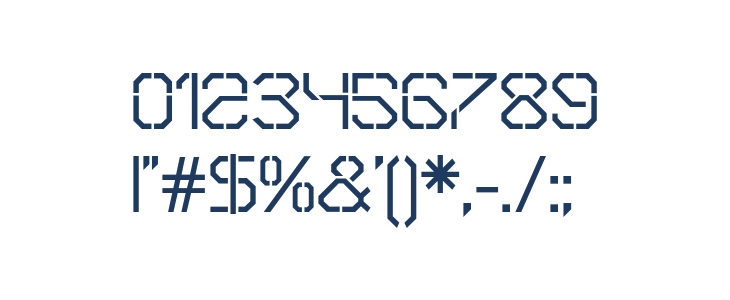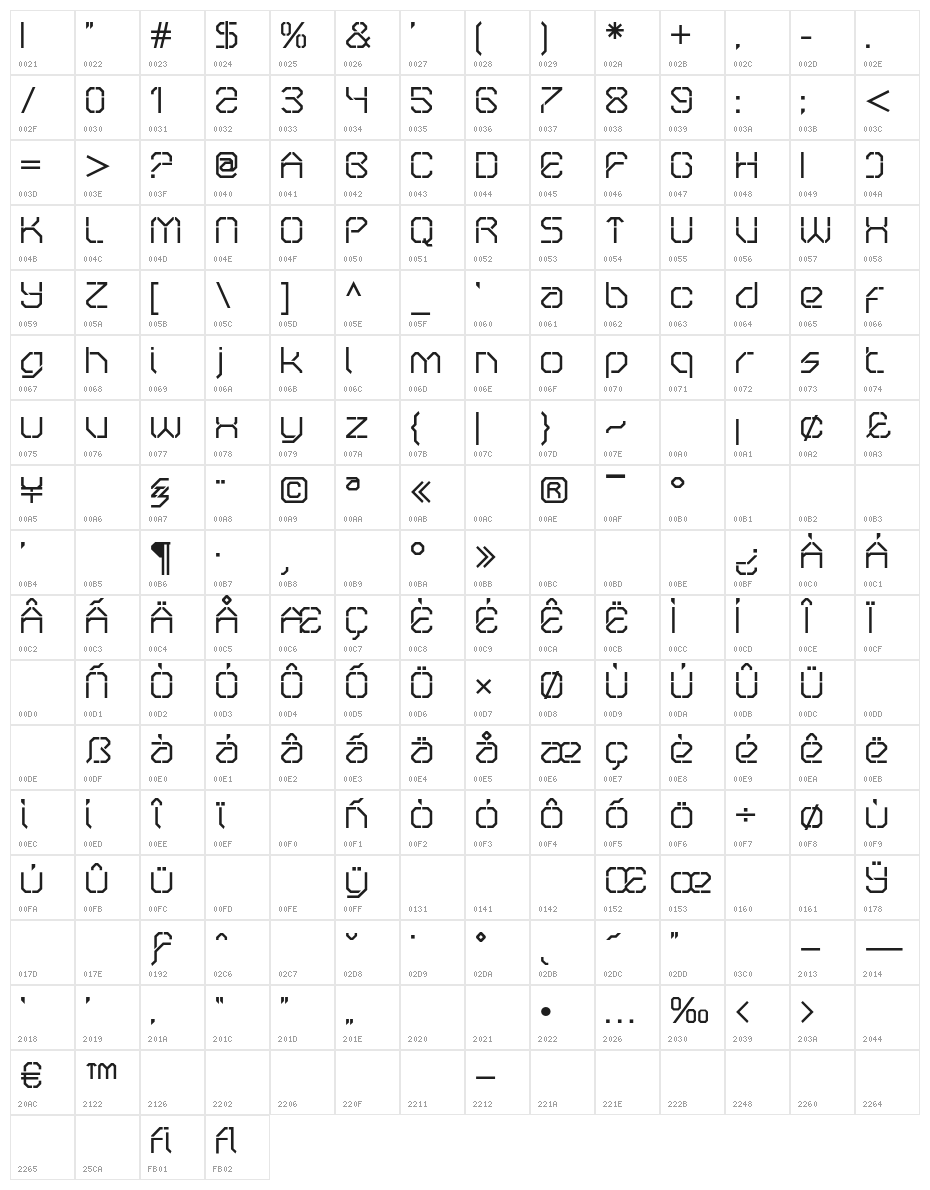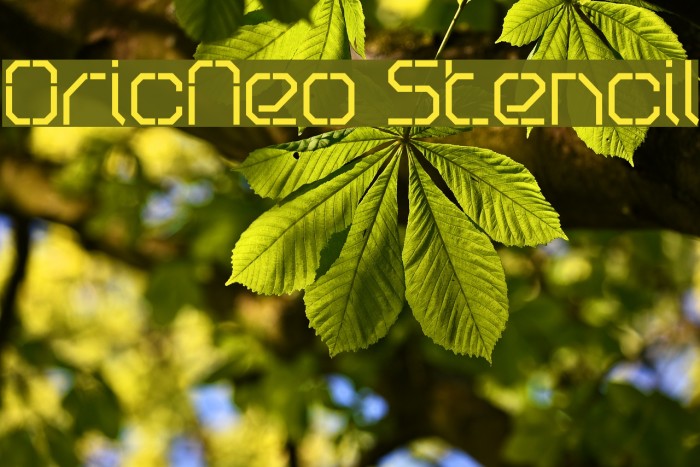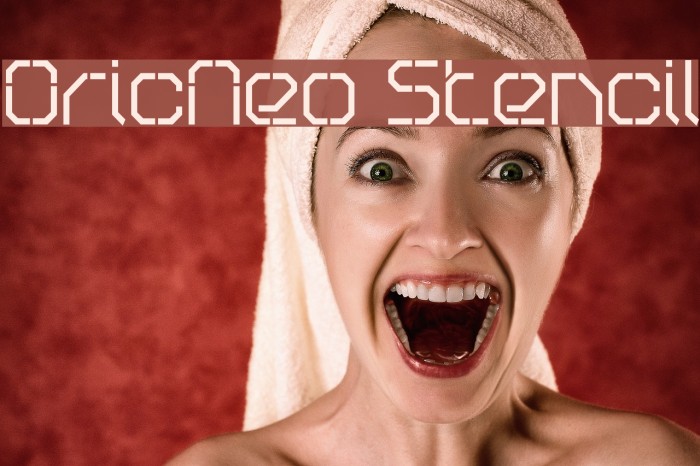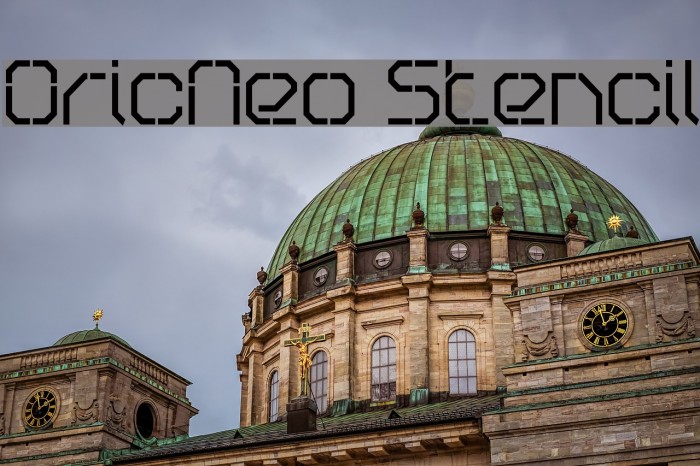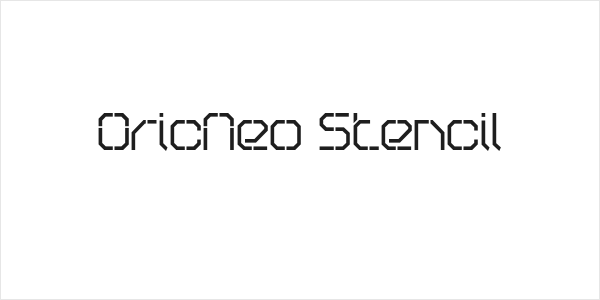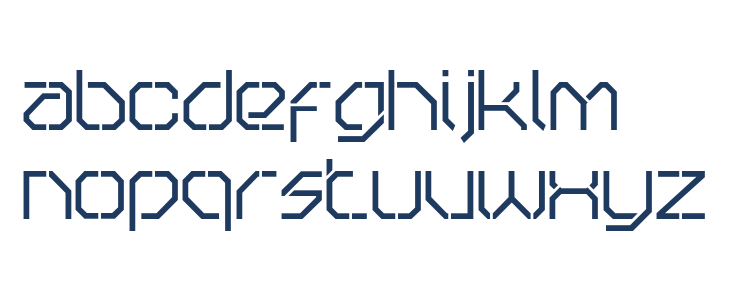
OricNeo Stencil Font
OricNeo Stencil Description
This font features a modern, geometric stencil design with a distinct, angular appearance. The characters are composed of bold, straight lines and sharp angles, creating a futuristic and industrial feel. The stencil gaps add a unique touch, making it ideal for designs that require a strong, mechanical aesthetic. The uppercase and lowercase letters maintain a consistent style, while the numerals and special characters complement the overall design. The font's structure is clean and precise, ensuring readability while maintaining its distinctive style.